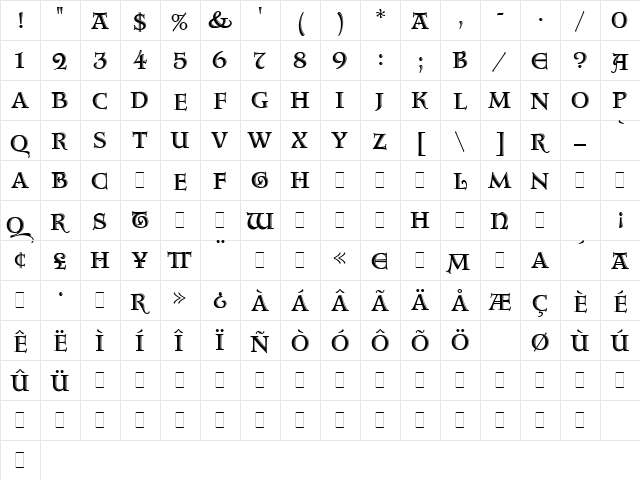
Aquitaine Initials LET Plain
Design Context for Aquitaine Initials LET Typeface
Aquitaine Initials LET is a composed and adaptable typeface that performs quietly and consistently across a wide range of design contexts.